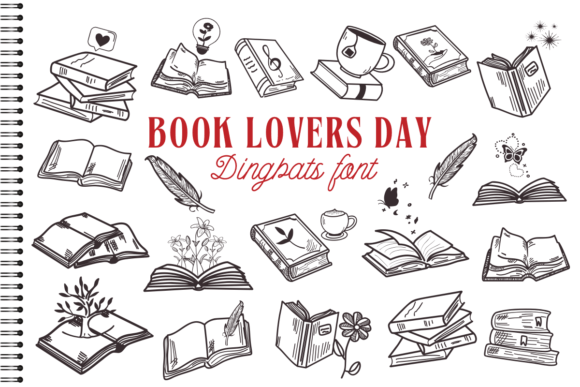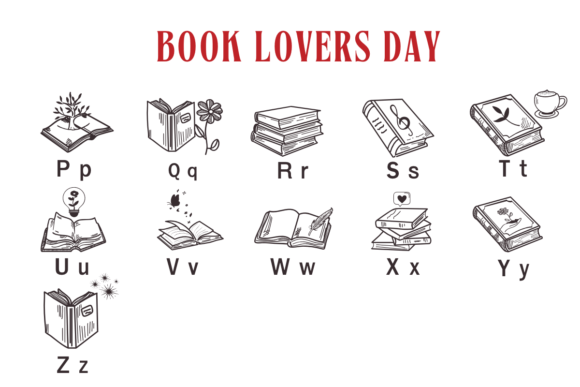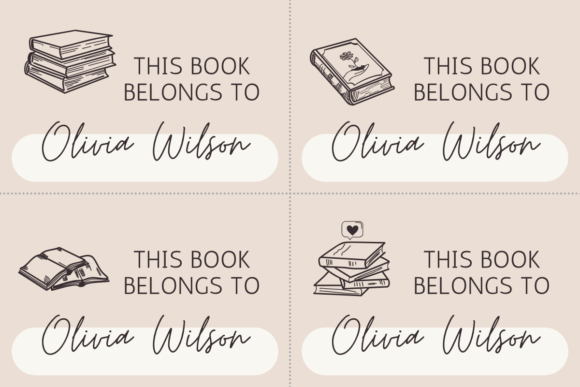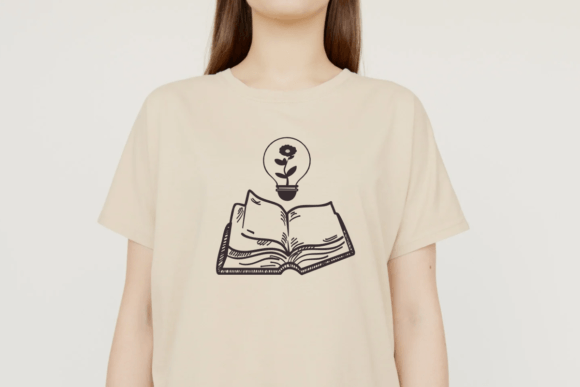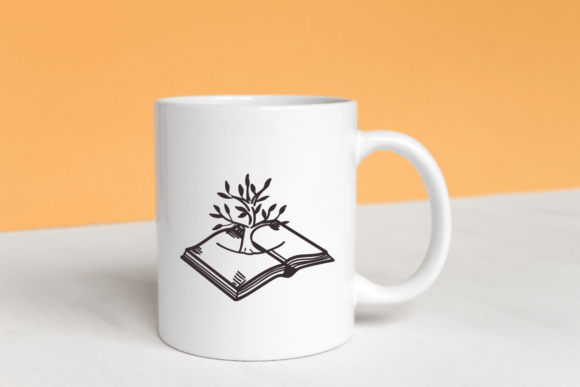
Book Lovers Day Font
Book Lovers Day is a delightful dingbat font featuring charming book-themed icons. Perfect for all the bookworms out there, this font adds a touch of literary magic to your designs. From bookmarks to book club flyers, let these adorable book icons celebrate your love for reading in style!